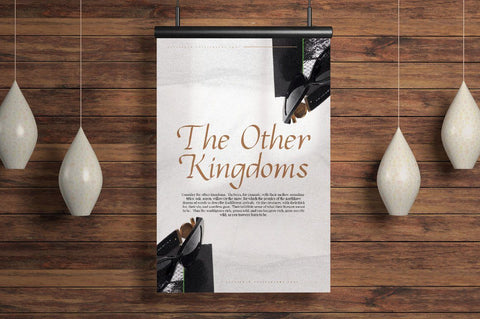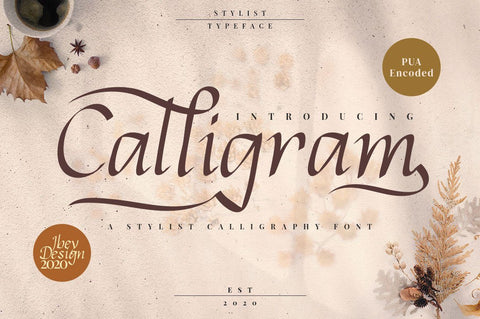
Calligram - Calligraphy Script Font
Calligram Calligraphy Script Font is a unique stylish calligraphy font. It’s perfect for adding a personal charm to your photography, watermarks, social media posts, advertisements, logos & branding, invitations, product designs, labels, stationery, wedding designs, product packaging, special events or anything that need calligraphy or handwriting taste.
Calligram Calligraphy Script Font is PUA encoded which means you can access all of the glyphs and swashes with ease! It features a varying baseline, smooth lines, gorgeous glyphs and stunning alternates.